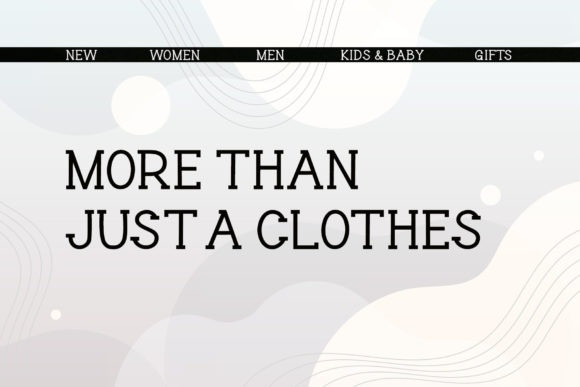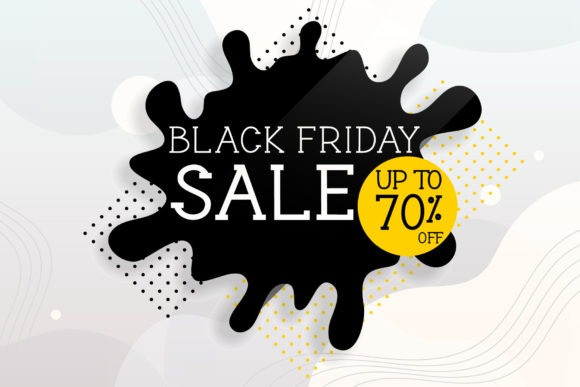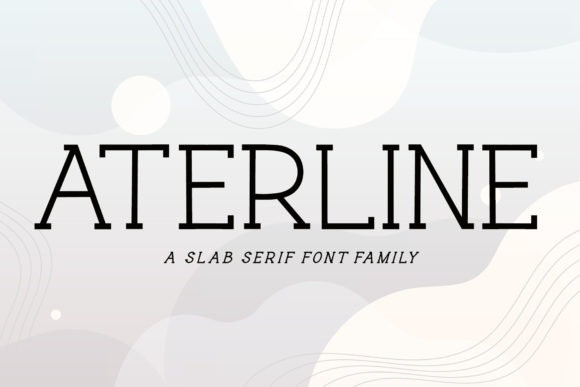
Aterline Slab Serif Font
Aterline is a simple but elegant slab serif font. It will elevate a wide range of crafting ideas, from cards to branding, labels, and much more.